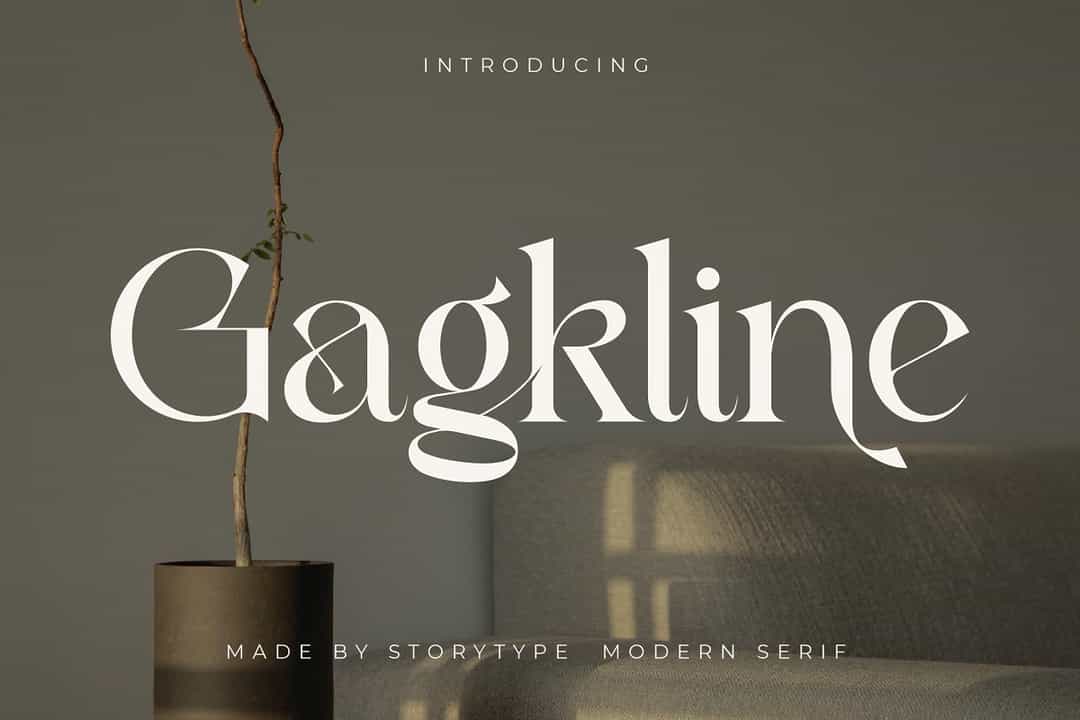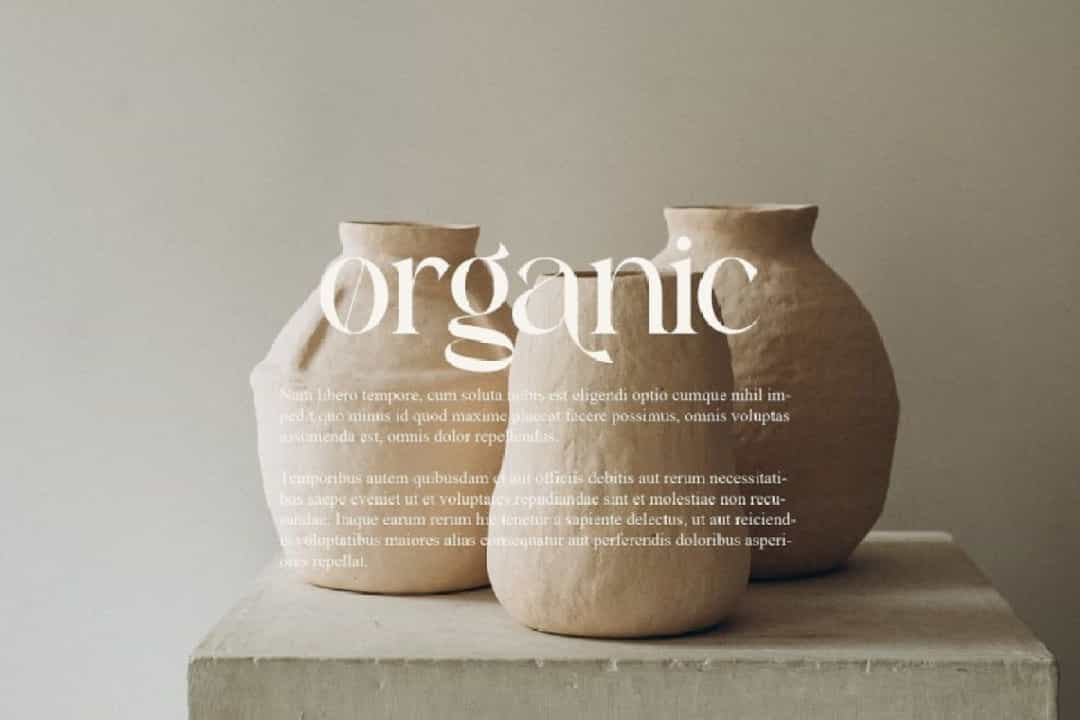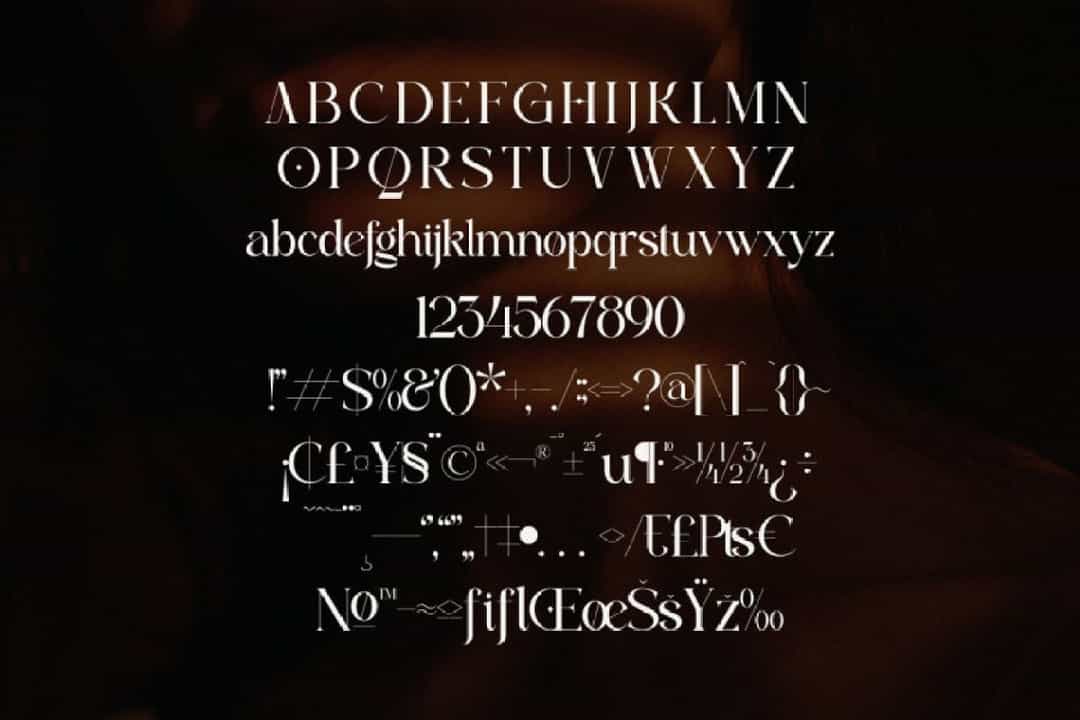
Gagkline can be described as an elegant and modern serif typeface with its distinct style and modern appearance. Perfect for creating luxurious logos, book or film styles, fashion label clothing labels, magazines lettering as well as quotes this typeface is also great for lettering quotes of various kinds and even quotes about literature!